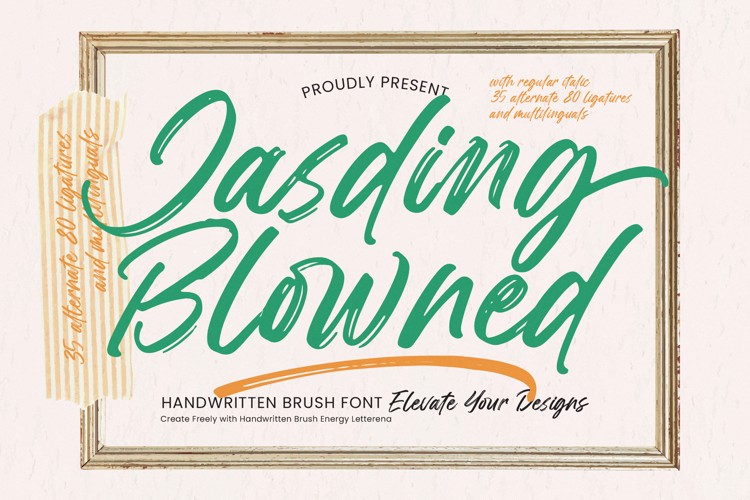
Jasding Blowned Font
Jasding Blowned - Handwritten Brush Font
Elevate your designs with unparalleled authenticity and creative flair. Introducing Jasding Blowned - Handwritten Brush Font, a dynamic and expressive typeface that perfectly captures the raw energy of genuine brush strokes. This handwritten brush font offers a uniquely authentic aesthetic, blending organic flow with a striking visual presence, ideal for projects demanding a touch of personal artistry and bold personality.
Unlock a spectrum of creative possibilities with its rich feature set. Jasding Blowned - Handwritten Brush Font is engineered for maximum impact and flexibility. It comes complete with a regular italic style and an impressive collection of 35 alternate ligatures and 80 ligatures, providing extensive stylistic variations. These carefully crafted alternates allow designers to achieve truly custom, seamless lettering and elevate any typographic layout with unique character connections.
Seamlessly expand your reach with comprehensive global compatibility. With its extensive multilingual support, Jasding Blowned - Handwritten Brush Font adapts seamlessly across global markets, making it incredibly versatile for international projects. This feature ensures your message resonates worldwide, maintaining its distinctive charm and readability across diverse languages and scripts, proving its value as a truly professional asset.
Discover the perfect typographic voice for your most ambitious ventures. Jasding Blowned - Handwritten Brush Font is perfectly suited for luxury branding, packaging design, compelling social media graphics, captivating editorial layouts, and unique merchandise. Its expressive quality makes it an indispensable tool for designers aiming to inject artistic elegance and a memorable, human touch into their work, guaranteeing a truly impactful result that stands out.